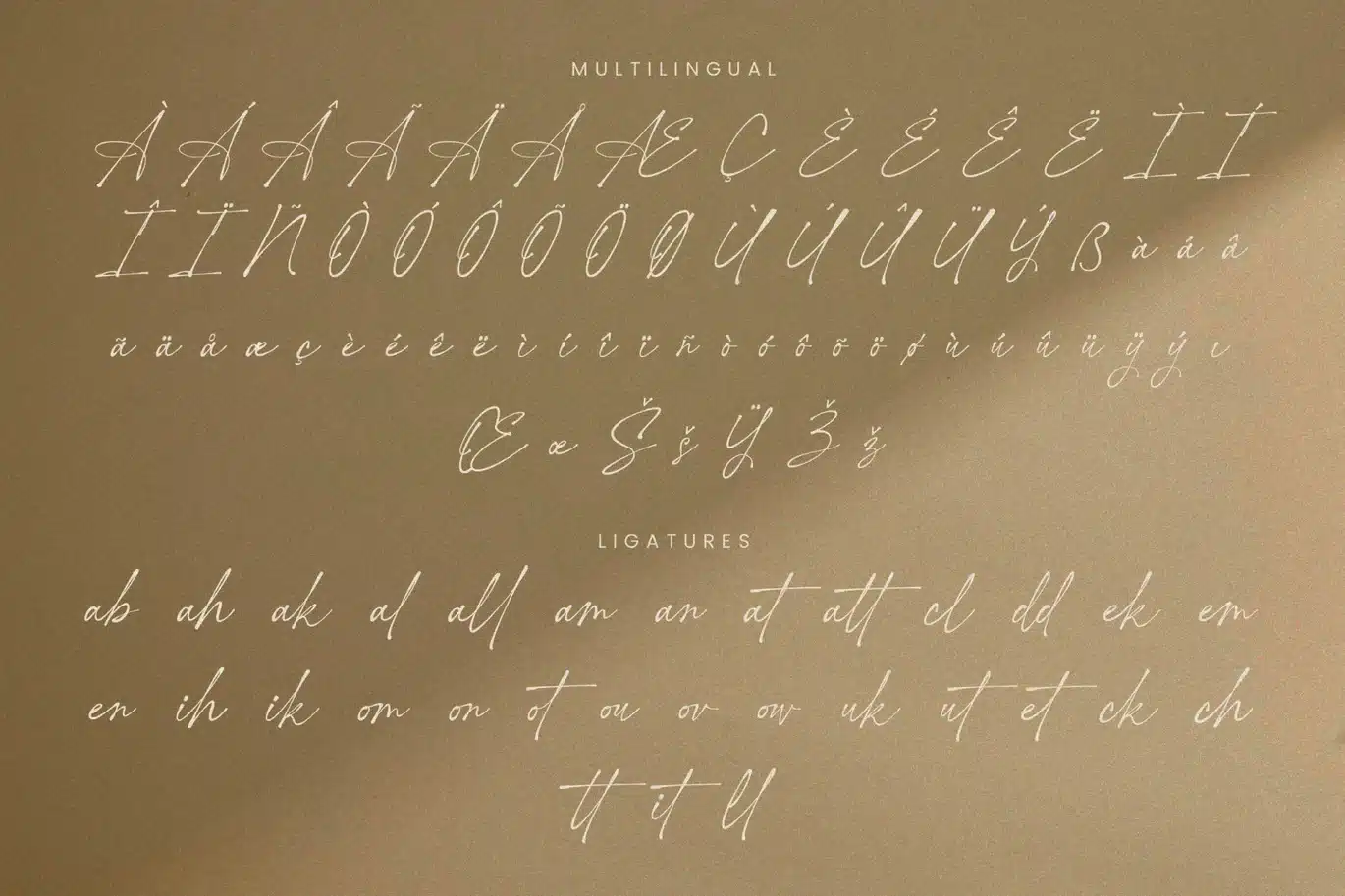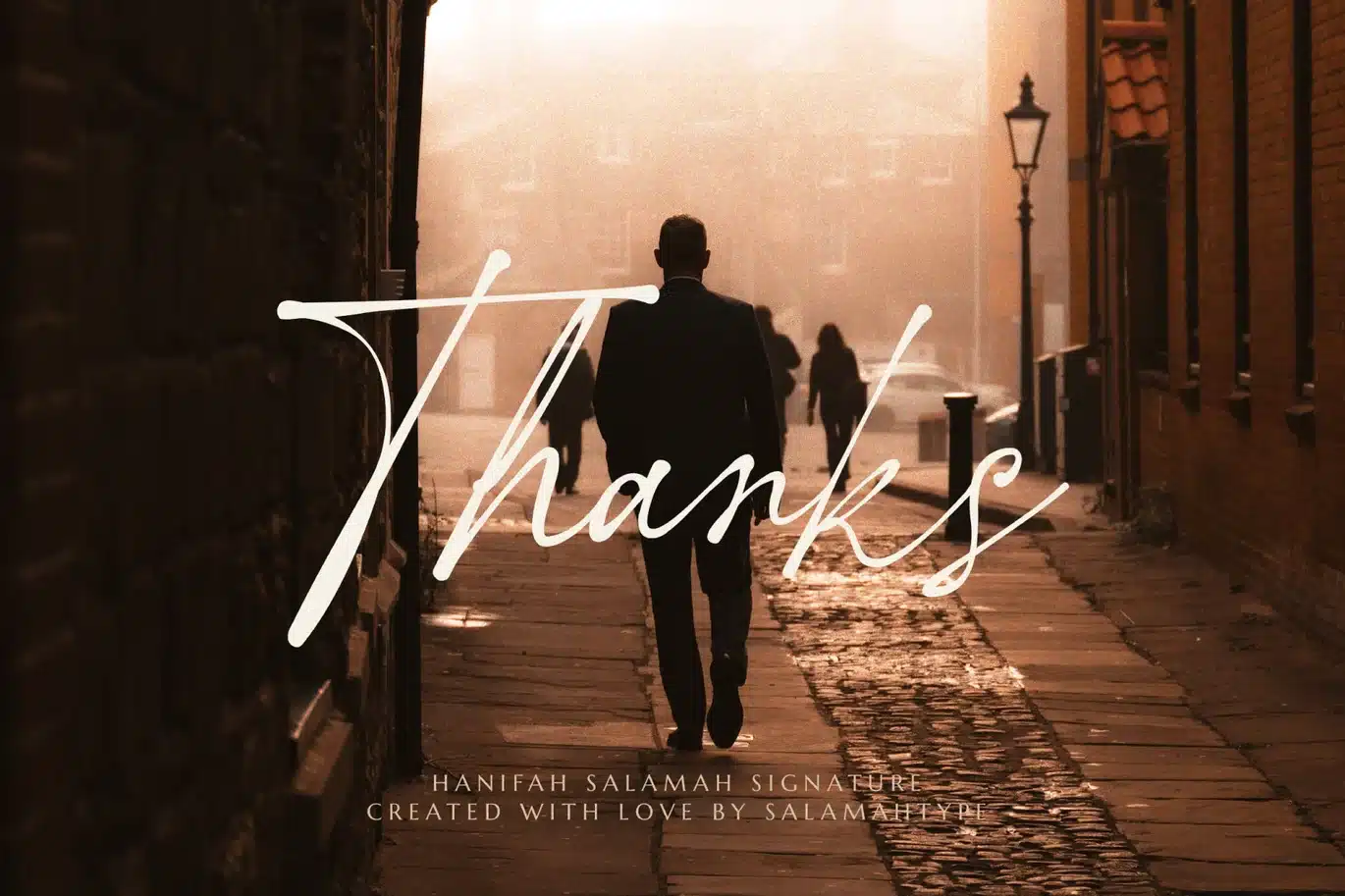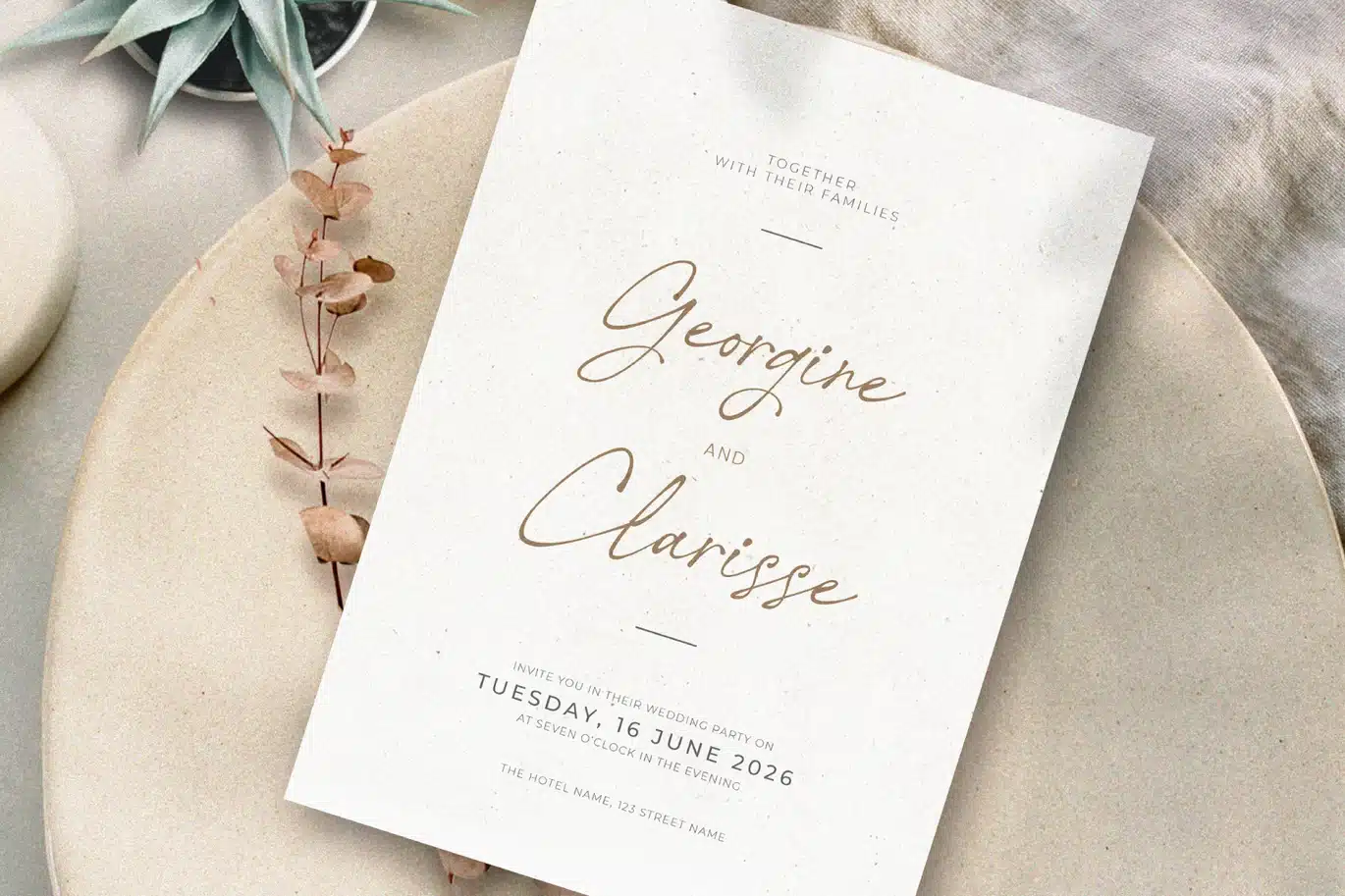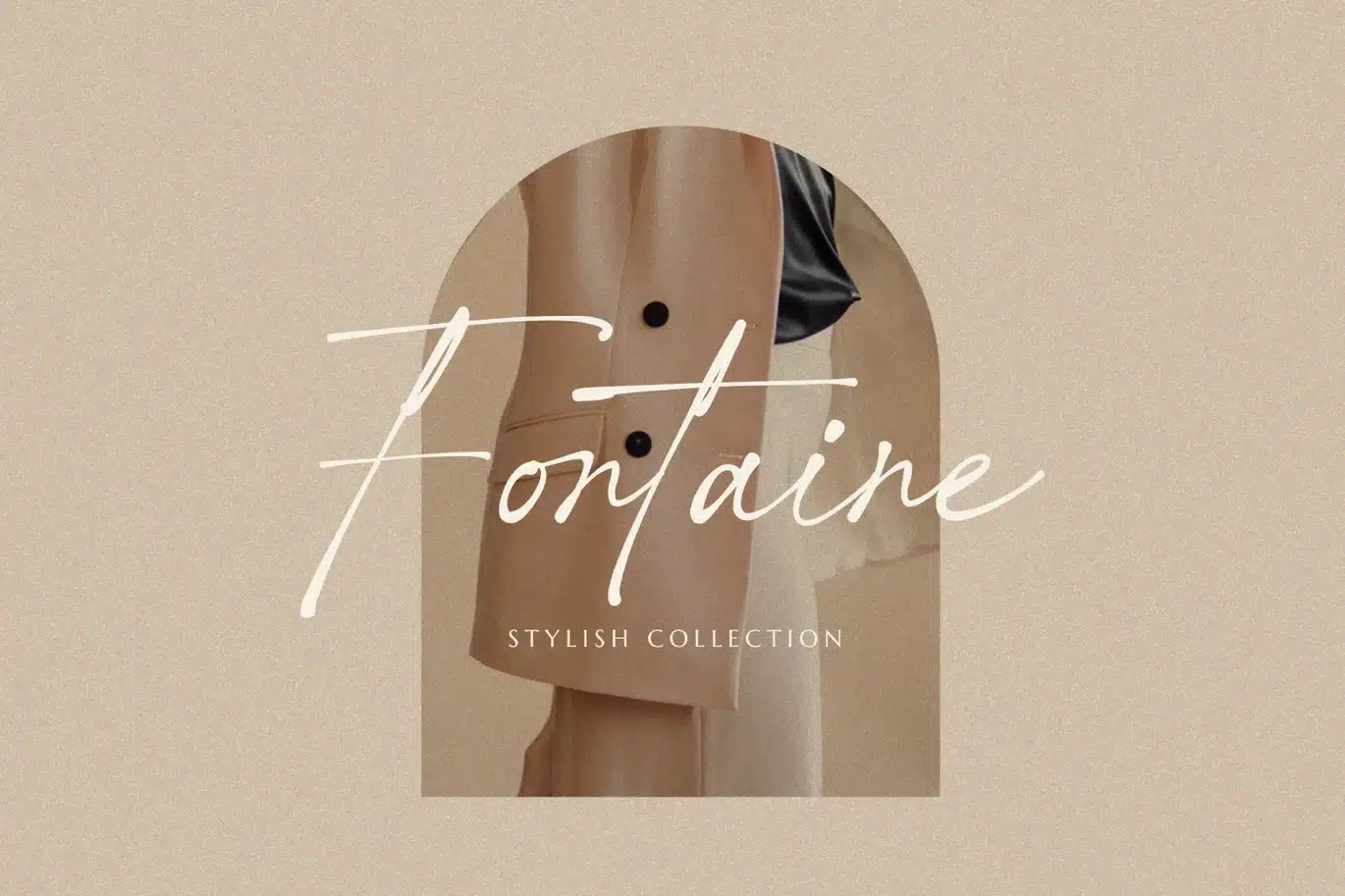
Hanifah Salamah Signature Font
Hanifah Salamah is a beautiful, special edition font from us that displays elegance and natural lines in every shape. We hope that with this font you can be creative and beautify your design projects.
This font is also suitable for projects such as social media, advertising, product packaging, product design, labels, photography, watermarks, invitations, stationery and more
Feature :
- Uppercase and lowercase letters
- Numbers and punctuation